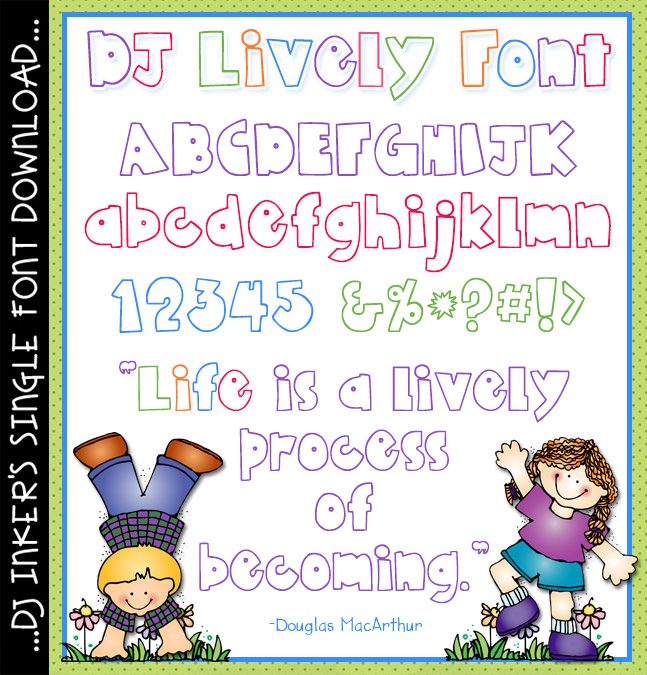
DJ Lively Font Download
'DJ Lively' will add a fun & playful touch to your lettering.
Perfect for headlining, posters... and for coloring projects (fill in the
letters with color, patterns or images by hand or on the computer). Try
using lots of different colors!
Also includes basic Spanish characters!
Hand drawn lettering by Dianne J Hook © DJ Inkers.